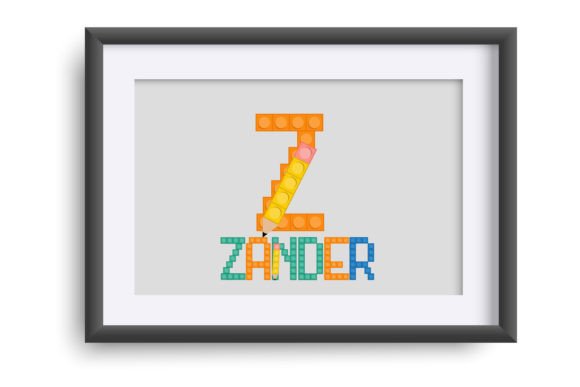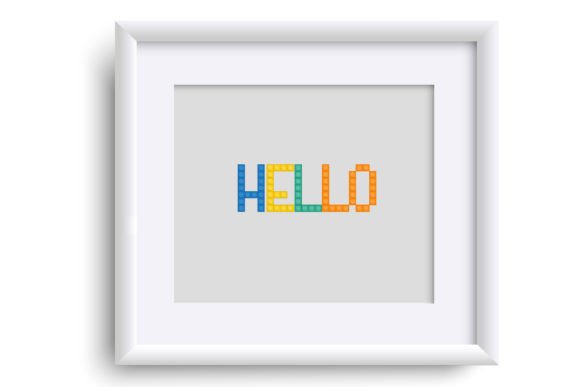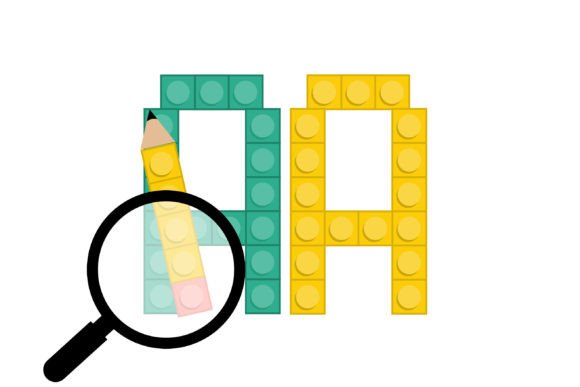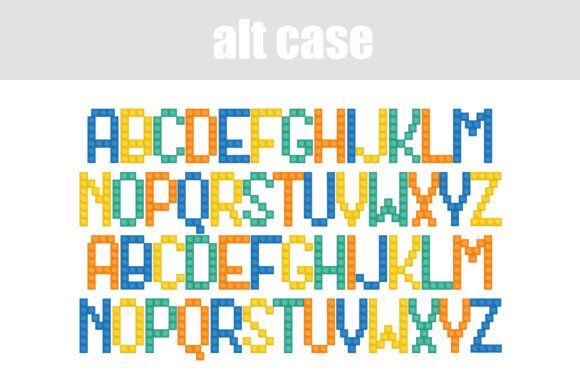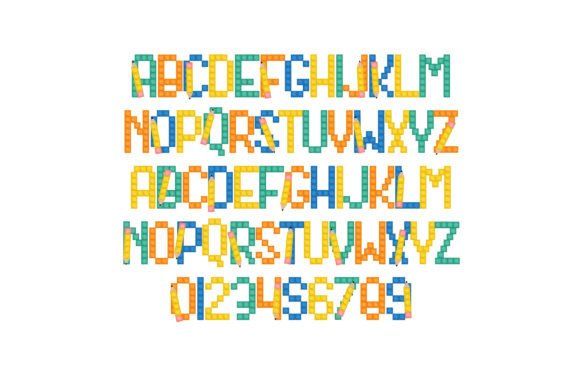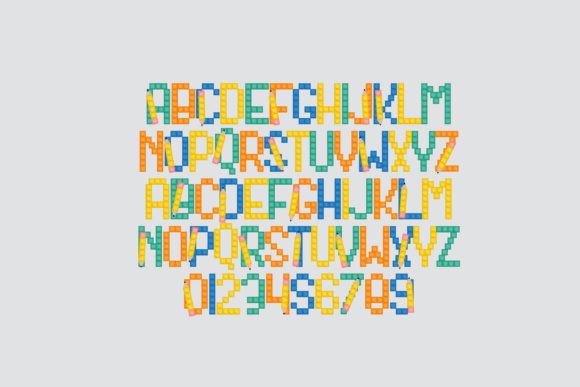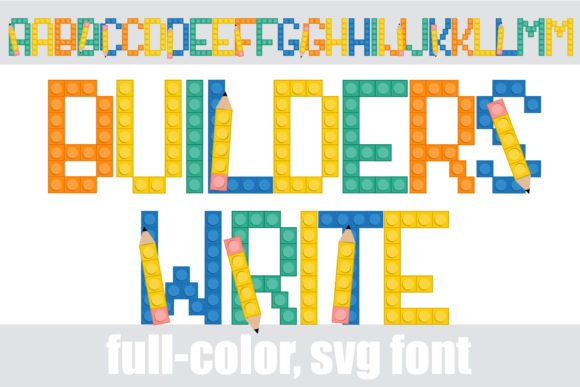
Introducing Builders Write Font: A Revolutionary Building Block Style Font
Are you a designer or crafter looking for a unique and creative font to elevate your projects? Look no further than Builders Write Font, a full-color font that features a building block style with pencils throughout. This innovative font is perfect for titles, displays, posters, and more, and is sure to add a touch of whimsy and fun to your designs.
Key Features of Builders Write Font
• Building Block Style: The font features a building block style with pencils throughout, giving it a playful and construction-themed look.
• Full-Color: The font is a full-color font, allowing you to add a pop of color to your designs.
• Alt Case: The font includes an alt case with additional colors that can be accessed through your system’s character map.
What to Expect When Using Builders Write Font
Tips for Using Builders Write Font
• Use it for titles and displays: Builders Write Font is perfect for titles and displays, where you want to make a bold statement.
• Experiment with different colors: The font includes an alt case with additional colors, so don’t be afraid to experiment and find the perfect color scheme for your design.
• Pair it with other fonts: Builders Write Font can be paired with other fonts to create a unique and interesting design.
Why Choose Builders Write Font?
Builders Write Font is a unique and creative font that is perfect for designers and crafters looking to add a touch of whimsy and fun to their projects. With its building block style and full-color design, it’s sure to stand out in any design. Plus, its compatibility with popular design programs makes it easy to use.